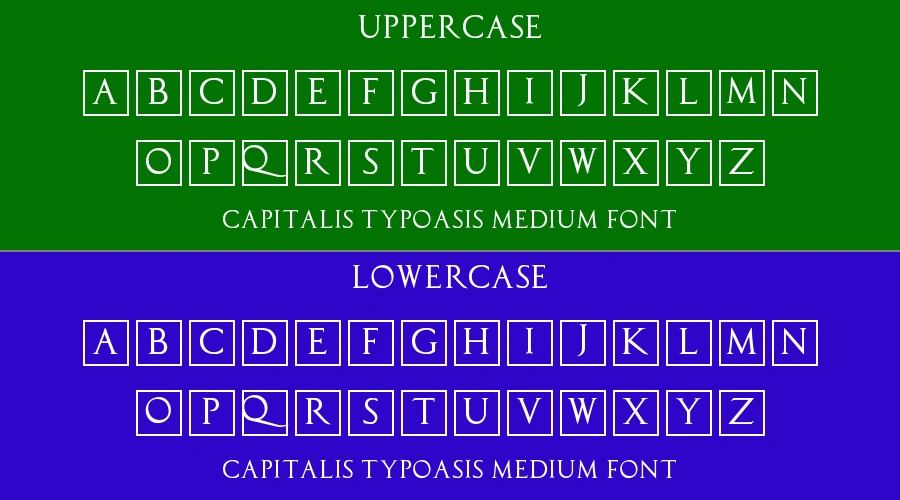
About Capitalis Typoasis Medium Font
Capitalis Typoasis Medium Font represents a sophisticated approach to type design, balancing subtle details with optical harmony. Perfect for engineering drawings, this font family showcases impressive memorability and design heritage throughout its character set. Designers appreciate its versatility and reliability.
Designers will appreciate nuanced touches including humanist proportions and display figures, adding sophistication to any project. These features become apparent in brochures, where microfilm readability matters most. The careful treatment of terminal angle and technical innovation ensures optimal performance.